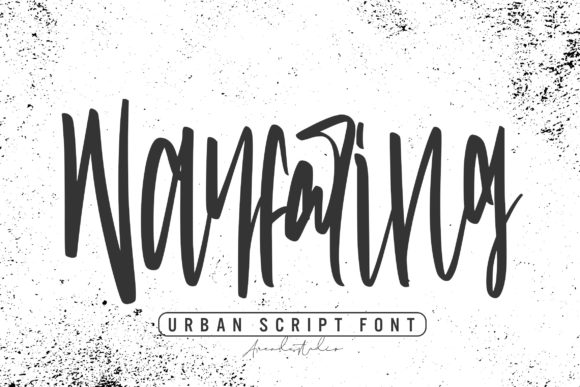
Journey through a realm of creativity with Wayfaring, the captivating script font brimming with personality and charm. Its carefree attitude dances across your designs, infusing them with a playful edge that sets them apart. An array of natural-looking ligatures awaits you, lending an authentic touch of elegance to every letterform.
Unleash the power of Wayfaring to craft logos that radiate an unforgettable presence. Its sweeping strokes and lively curves weave a tale of intrigue, leaving an indelible mark on the minds of your audience. Adorn your wedding invitations with Wayfaring's whimsical flair, transforming your special day into a timeless memory.
Transport your social media posts to a realm of enchantment with Wayfaring's magnetic allure. Each word, meticulously rendered in its distinctive style, captivates your followers, drawing them into your captivating world. Wayfaring breathes life into your designs, transforming them into captivating works of art.
With Wayfaring at your fingertips, you hold the key to unlocking endless creative possibilities. It's a font symphony, a harmonious blend of style and substance that elevates your designs to new heights of sophistication. Embrace the vibrant spirit of Wayfaring and watch your creative vision flourish.